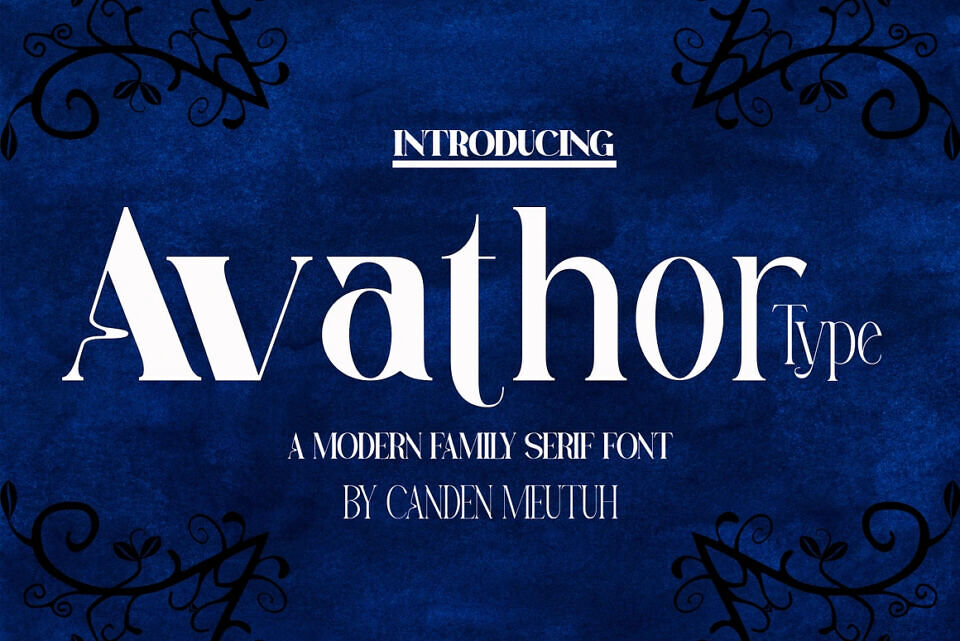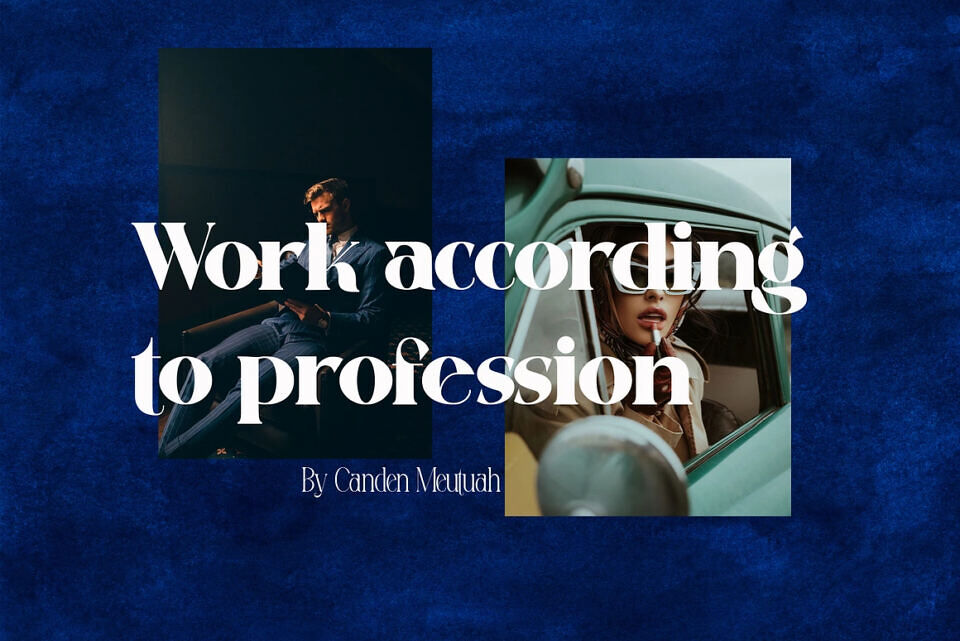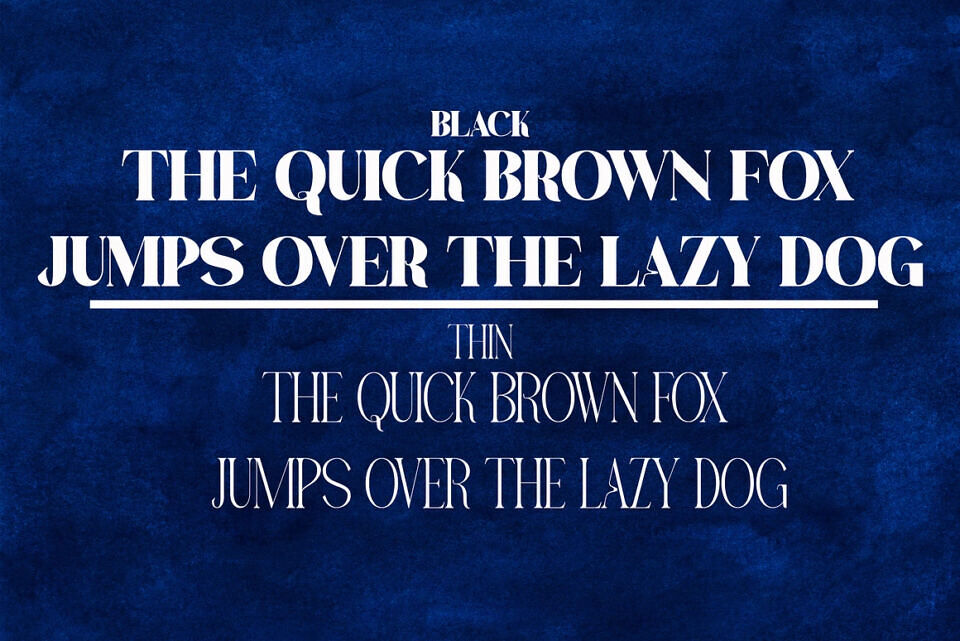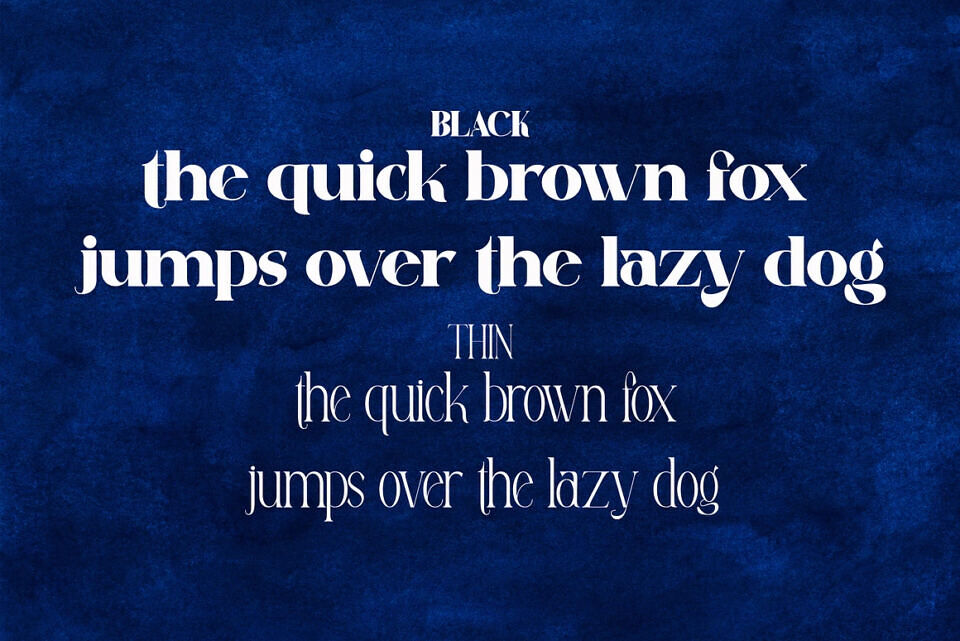
Avathor Type is a bold and stylish family of condensed serif fonts, blending retro aesthetics with modern minimalism. Designed with uppercase and lowercase characters, Avathor Type features bold proportions, clean lines, and bold curves, giving your designs a bold personality.
This font is perfect for posters, logo designs, editorial titles, album covers, fashion branding, and display titles, capturing attention with its distinctive touch.